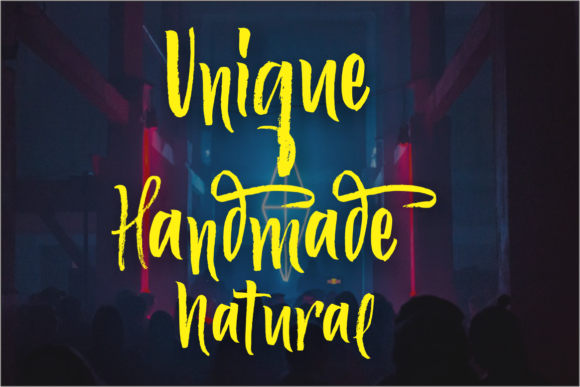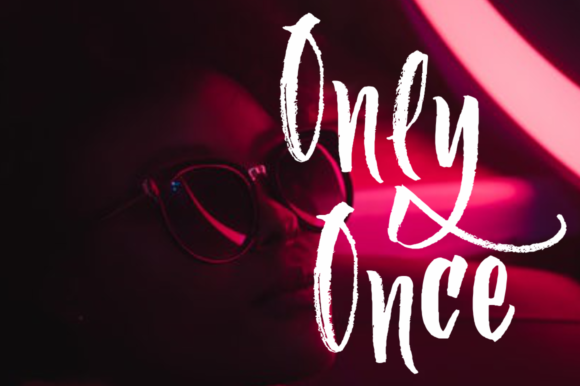
Ferguson Font
About Ferguson Font
Ferguson is a modern and incredibly unique handwritten font. No matter the topic, this font will be an incredibly asset to your fonts’ library, as it has the potential to elevate any creation.